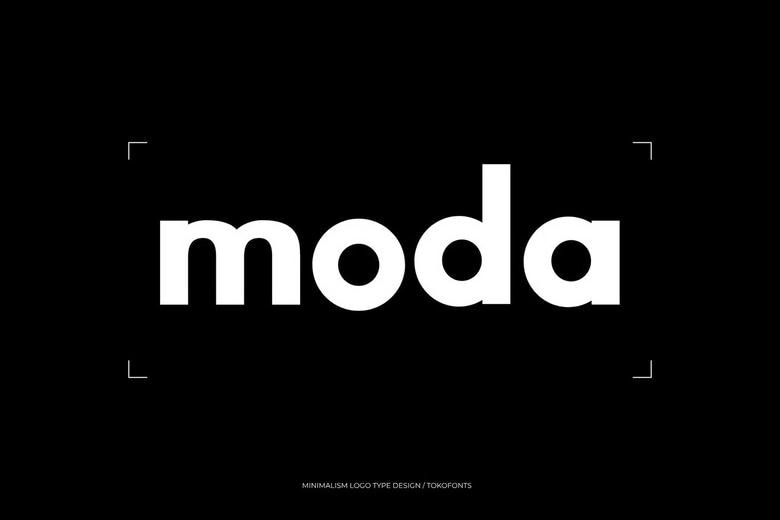
Moda Sans Font
Moda Sans Font is a contemporary and beautiful display typeface that aims to add a clean and minimal look to logo and branding projects. This font has a classic and modern touch with its smooth geometric shapes and proportions, which are reminiscent of Helvetica, Montserrat, and Futura, yet it has a new and modern appearance. It is ideally applicable in fashion branding, corporate identities, and contemporary design systems that demand clarity, simplicity, and high visual appeal.
Moda font is a versatile and sophisticated font that can be easily used in a broad spectrum of creative applications, both in professional corporate layouts and in the whimsical ideas of kids. The clean and minimal structure is perfect to achieve high readability and still have a bold display presence, which is ideal in logos, branding, and editorial compositions. Moda is one of the contemporary fonts that are elegant, functional, and minimal in design to create a powerful visual message.
Moda Sans Serif Font